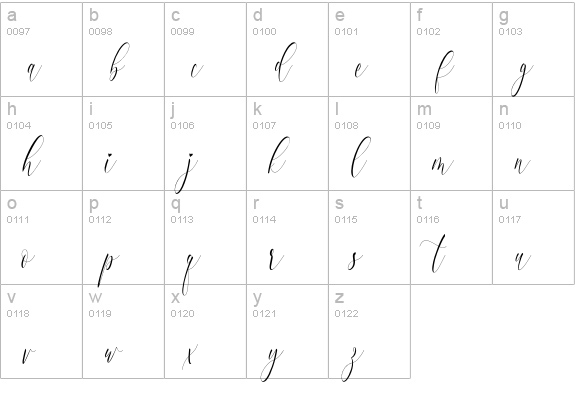
Charlotte Calligraphy Font Details
Charlotte Calligraphy is a free for personal use font in the Script > Calligraphy category, designed by aldedesign. It has been downloaded 763 times and is available for Windows, Mac and Linux.
Introducing Charlotte Calligraphy font - a stunning typeface that exudes elegance and sophistication. With its smooth and flowing strokes, Charlotte Calligraphy is perfect for adding a touch of class to your projects. This versatile font is ideal for wedding invitations, branding, signage, and more.